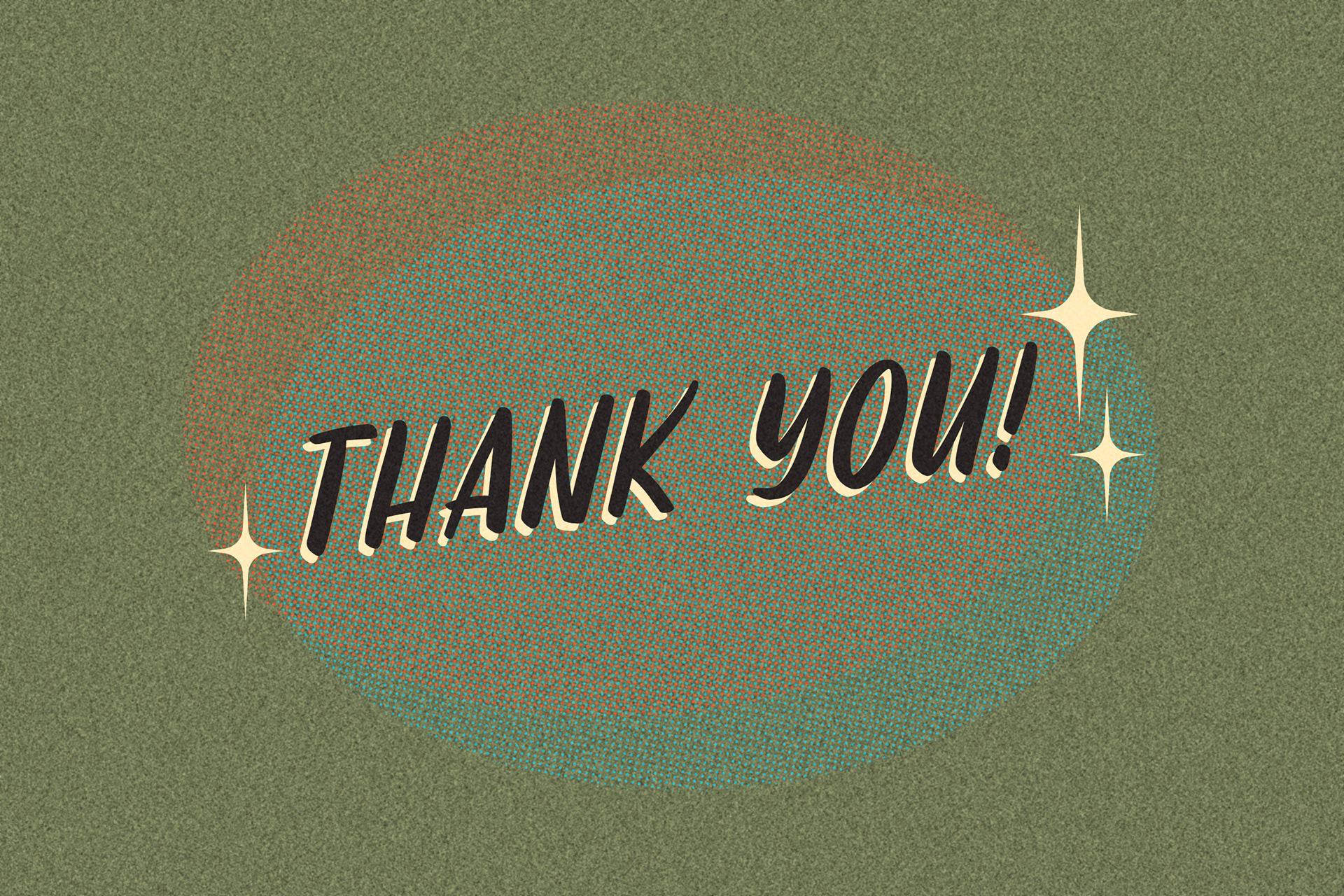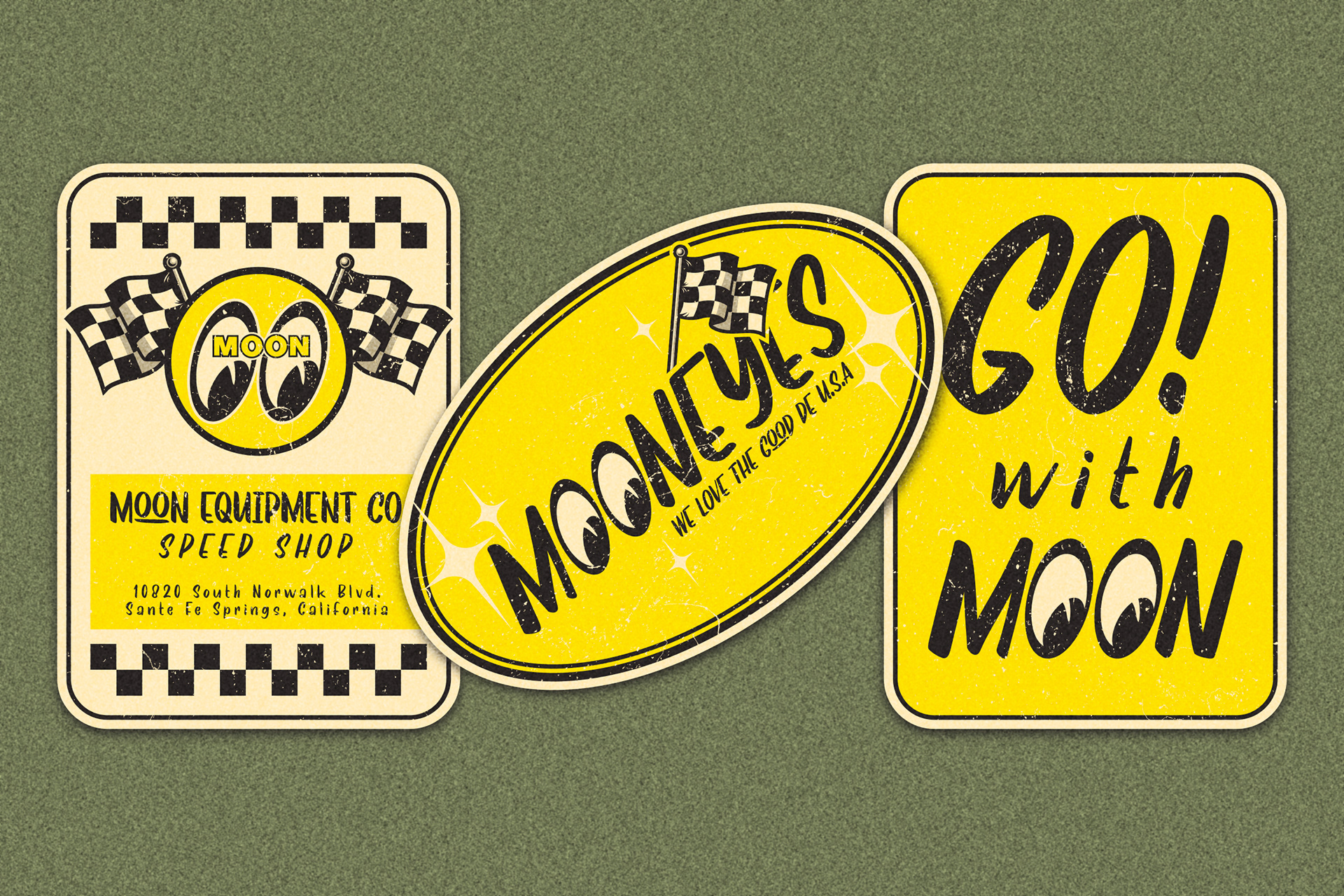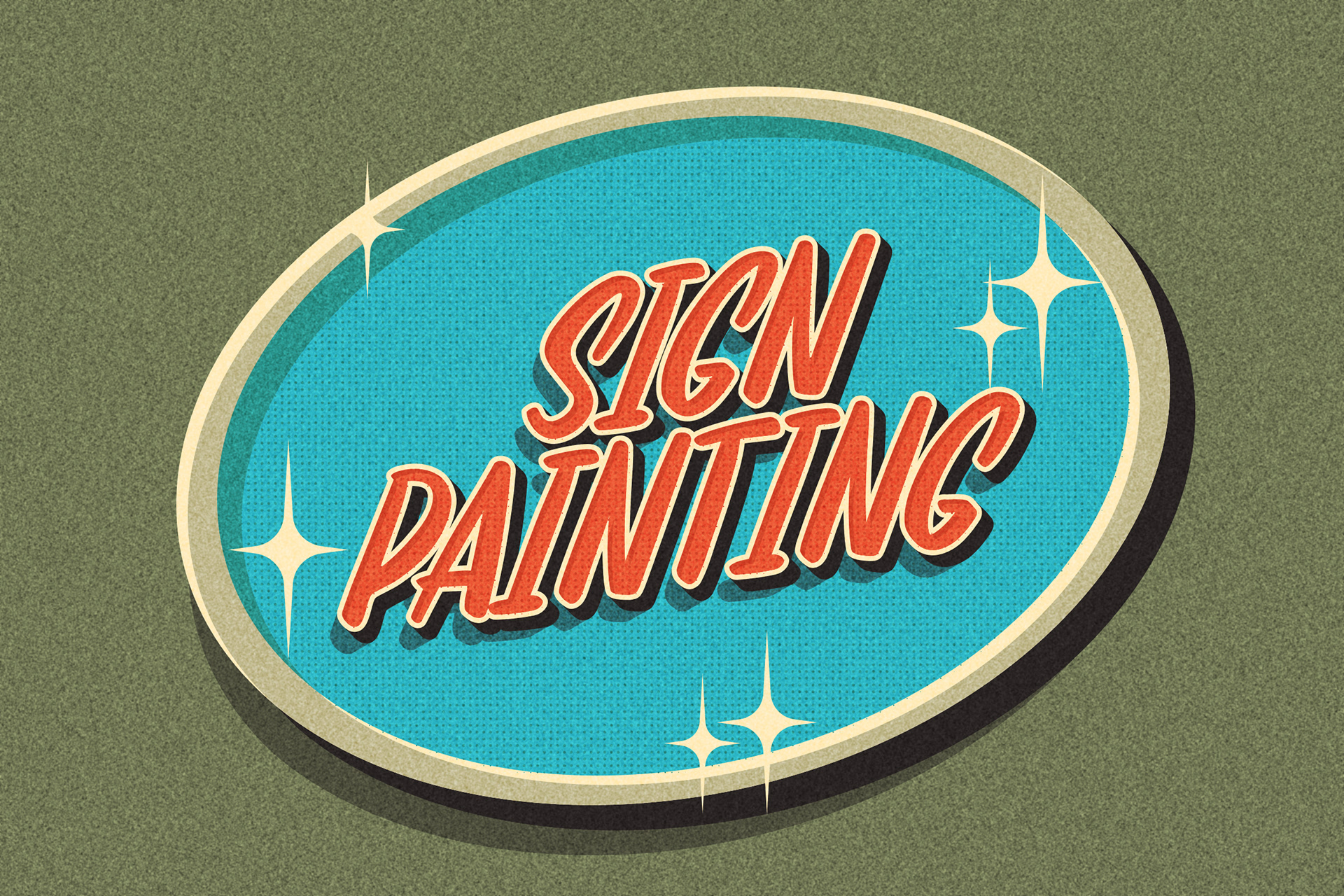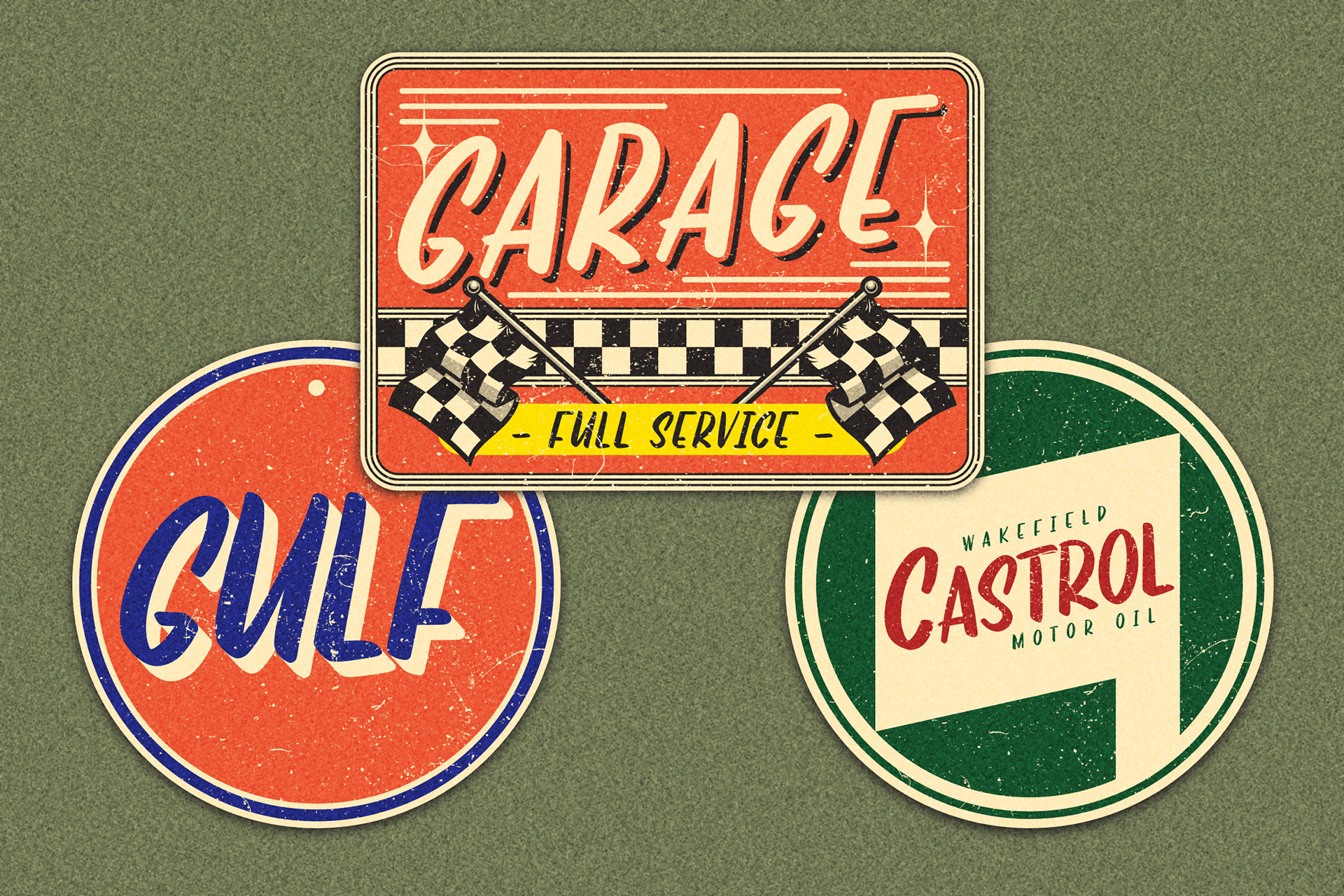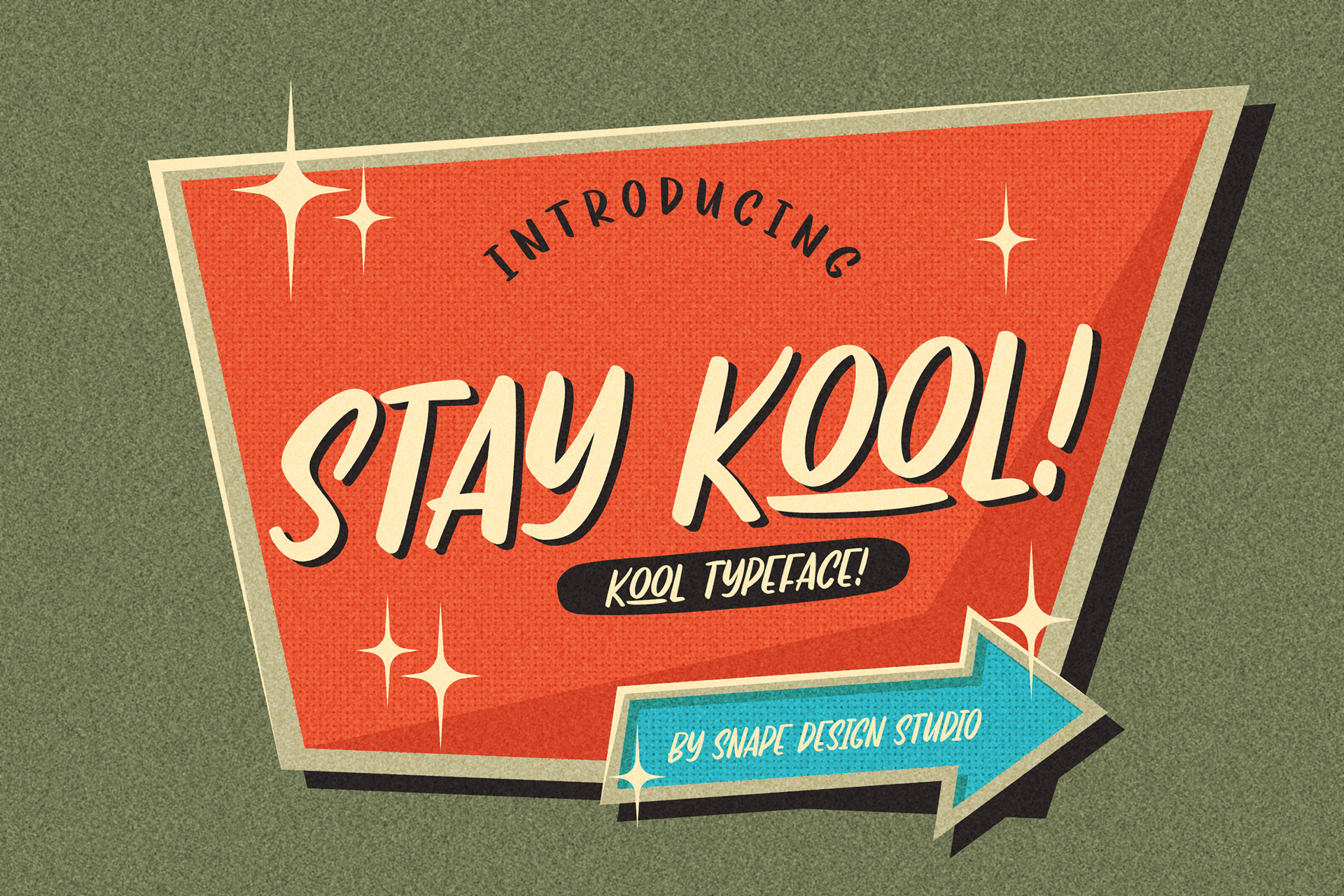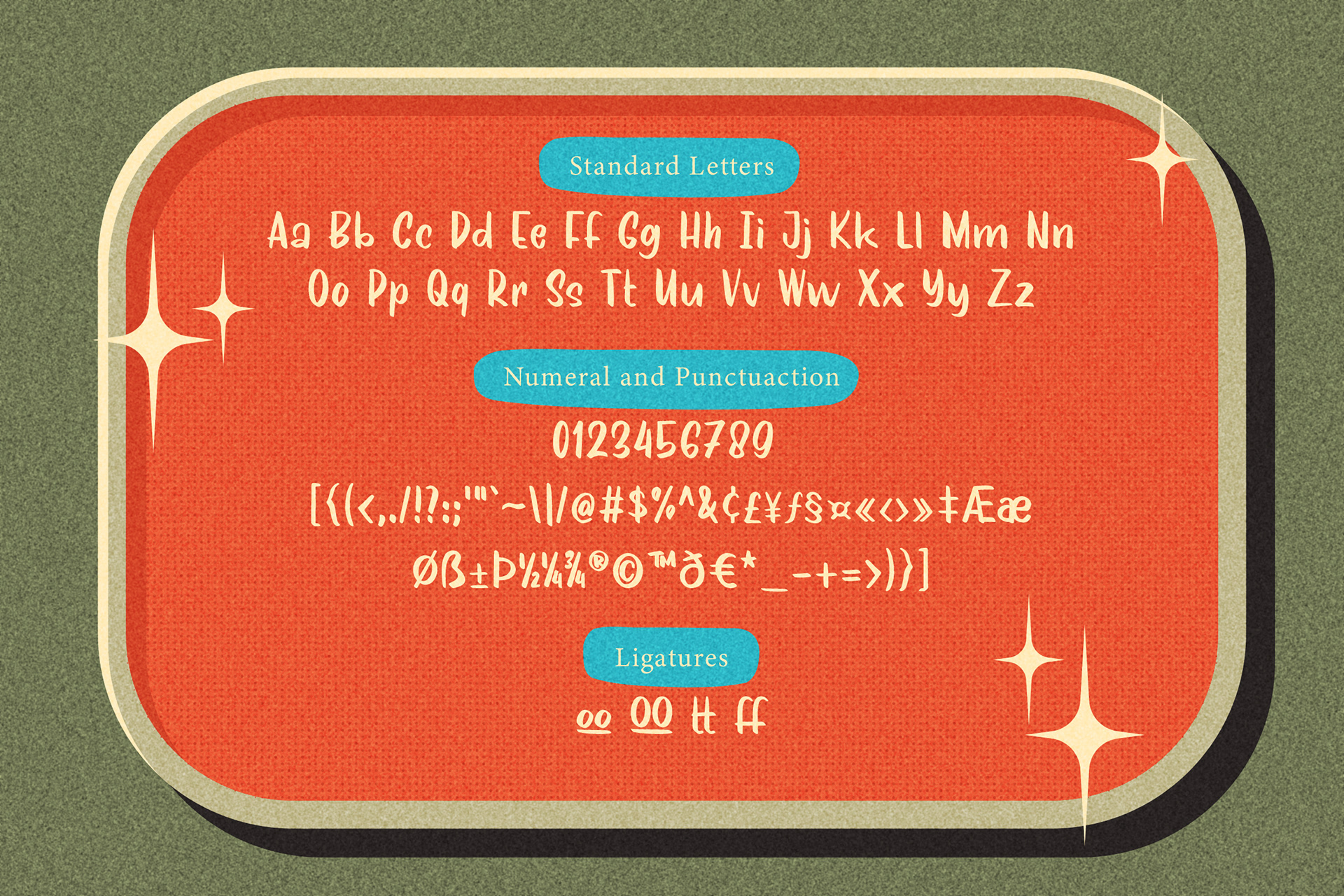
Stay Kool is a fun, casual and relaxed display font. Created with the help of a brush pen, this font is ideal for your informal and trendy creations! Suitable for retro sign design, movie, documenter, film, logo, poster, game, book cover, headlines, title and many more projects. Add this font to your creative ideas and notice how it will make them stand out!